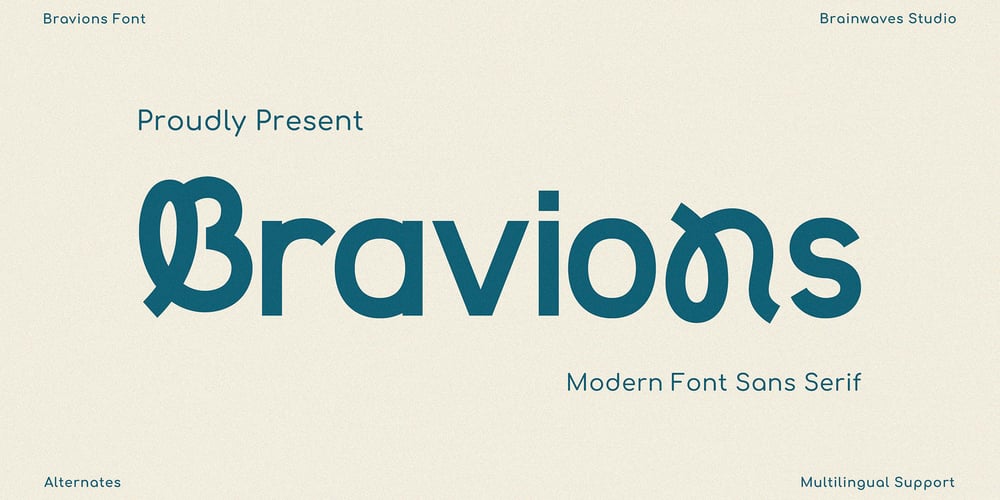
Bravions Font Family was designed by Anggil Sukma and published by Brainwaves Studio. Bravions contains 2 styles and family package options. This Is Our New Font Sans Serif Display Bravions, Bravions Had A Taste Of Minimalist Font. This Font Good For Logotype, Logo Text, Graphic Design.